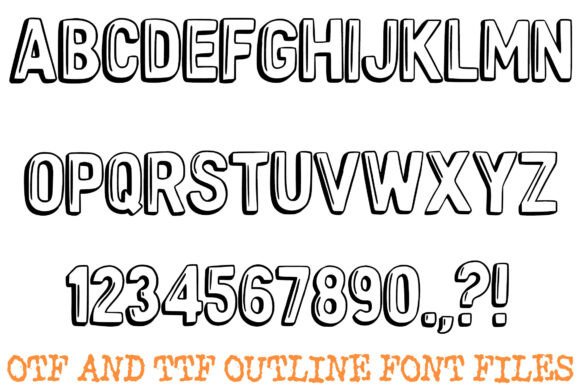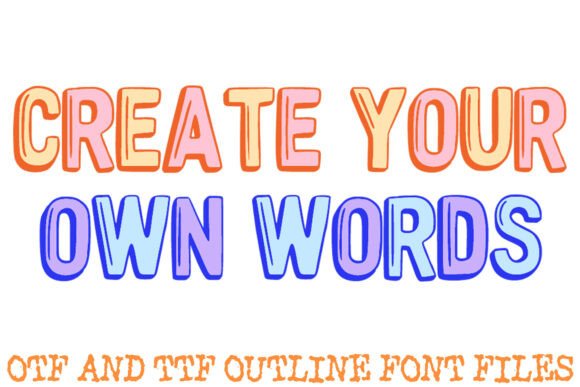
Introduction to Shadow Doodle Font
As a designer, there’s nothing quite like the thrill of bringing a new project to life. You’ve spent hours brainstorming ideas, sketching out concepts, and perfecting the details – but then, it all comes down to the final touch: the font. Will it be bold and eye-catching, or subtle and elegant? For many designers, the answer lies in a clever combination of style and functionality. Enter the Shadow Doodle Font, a game-changing design resource that’s about to revolutionize the way you approach your creative projects.
With its clean, hand-drawn lines and built-in shadow detail, the Shadow Doodle Font is the perfect choice for designers looking to add a professional touch to their work. Whether you’re creating teacher resources, social media graphics, or digital scrapbooking materials, this versatile display alphabet is sure to impress. And the best part? It’s available for free download, making it an accessible and high-quality design resource for designers of all levels.
Key Features of Shadow Doodle Font
- Unique, hand-drawn design with a playful and whimsical feel, ideal for creative projects and design resources.
- High-quality font with a transparent background, making it easy to use on any design surface.
- Includes a range of characters, including uppercase and lowercase letters, numbers, and punctuation marks, to provide a comprehensive solution for your design needs.
- Designed at 300 DPI resolution for high-quality output, suitable for printing and digital use.
- Perfect for use in digital art, graphic design, and creative projects where a unique and eye-catching font is required.
- Easy to use and customize, making it an excellent design resource for both beginners and experienced designers.
Honest Review: Shadow Doodle Font
I recently had the chance to work with the Shadow Doodle Font, and I must say, it’s been a delight. As a designer, I’m always on the lookout for high-quality design resources that can elevate my creative projects.
One of the things that works well with this font is its transparent background, which allows for seamless integration with other design elements. The free download option is also a huge plus, making it accessible to designers of all levels.
Here are some of the key features that I appreciate about the Shadow Doodle Font:
- High-quality design with a unique, doodle-inspired aesthetic
- Transparent background for easy layering and composition
- Free download option for designers on a budget
Of course, no design resource is perfect, and there are a few limitations to consider:
- ⚠️ Limited character set, which may not be suitable for longer text-based projects
- ⚠️ Not ideal for small-scale text, as the doodle aesthetic can become overwhelming
Overall, I’m really impressed with the Shadow Doodle Font. It’s a fantastic addition to any designer’s toolkit, and I’m excited to see how it will enhance my future creative projects. ✨”
Tips for Getting the Most Out of Shadow Doodle Font
For the best results, use the Shadow Doodle Font on a transparent background or with a subtle background texture. This will allow the font to take center stage and add a creative touch to your design project. Additionally, experiment with different font sizes and colors to add visual interest to your design.
The Shadow Doodle Font is a versatile design resource that can be used in a variety of creative projects, including invitations, posters, social media graphics, and presentations. It’s also a great resource for designers who want to add a playful and whimsical touch to their designs.